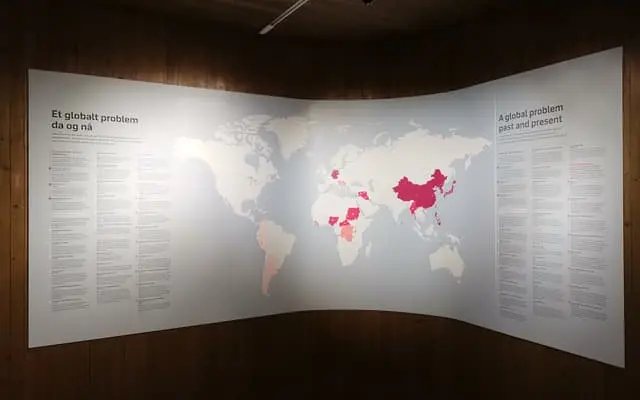
November Stencil
A nine-weight stencil family from Typotheque, available as a variable font, with each weight named after a world city.
Built on the structure of Typotheque's November sans-serif, this stencil variant runs from Hairline to Black with interrupted strokes characteristic of the stencil genre. Each weight carries the name of a global city, from Amsterdam at Hairline to Istanbul at Black. A variable font version is included, making the full weight range accessible in a single file.
A stencil variant of the November family, characterised by interrupted strokes and cutouts that define the stencil genre; the underlying structure is a contemporary sans-serif adapted for stencil use, placing it firmly in display territory.